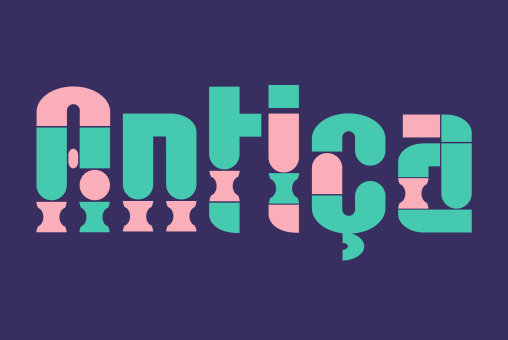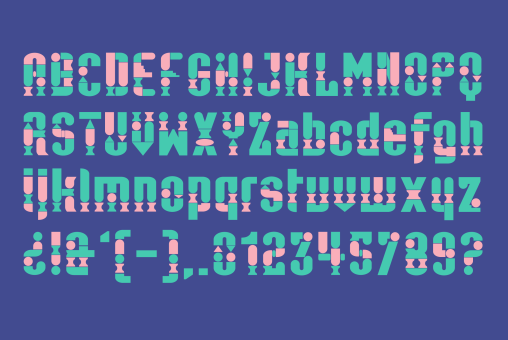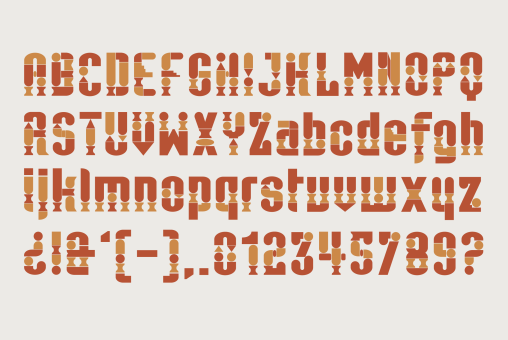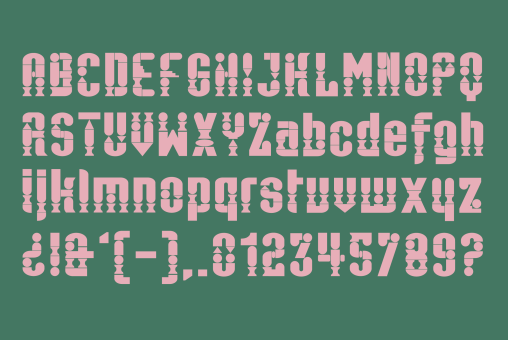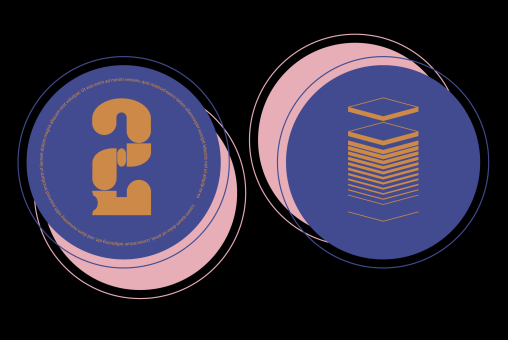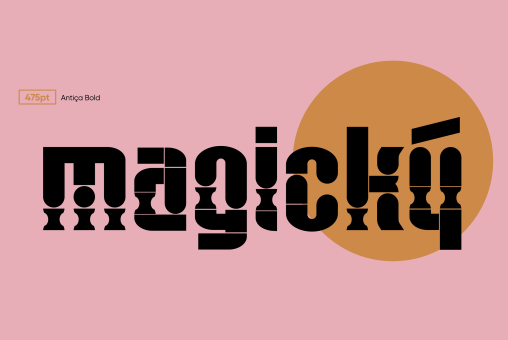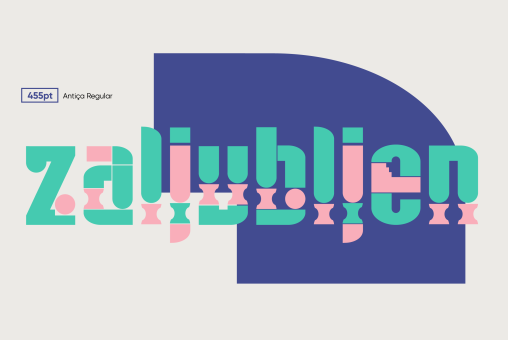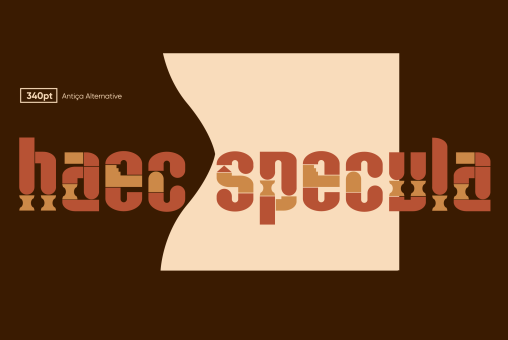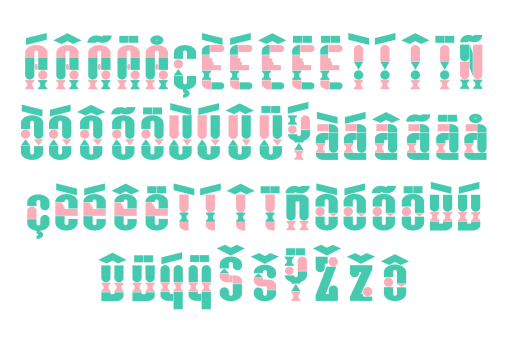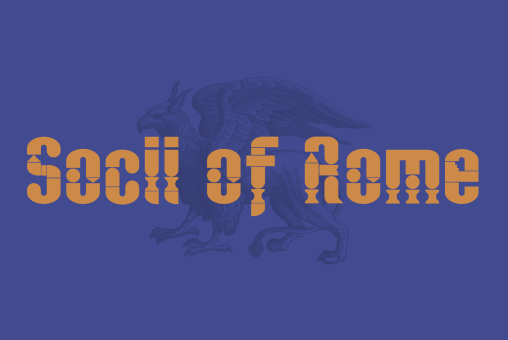
Antica Font
Typography made from geometric forms, includes 3 variables (Regular - Alternative - Bold). Beautiful to make different types of pieces, colorful and unique.
Designer: Yai Salinas
Publisher: Yai Salinas